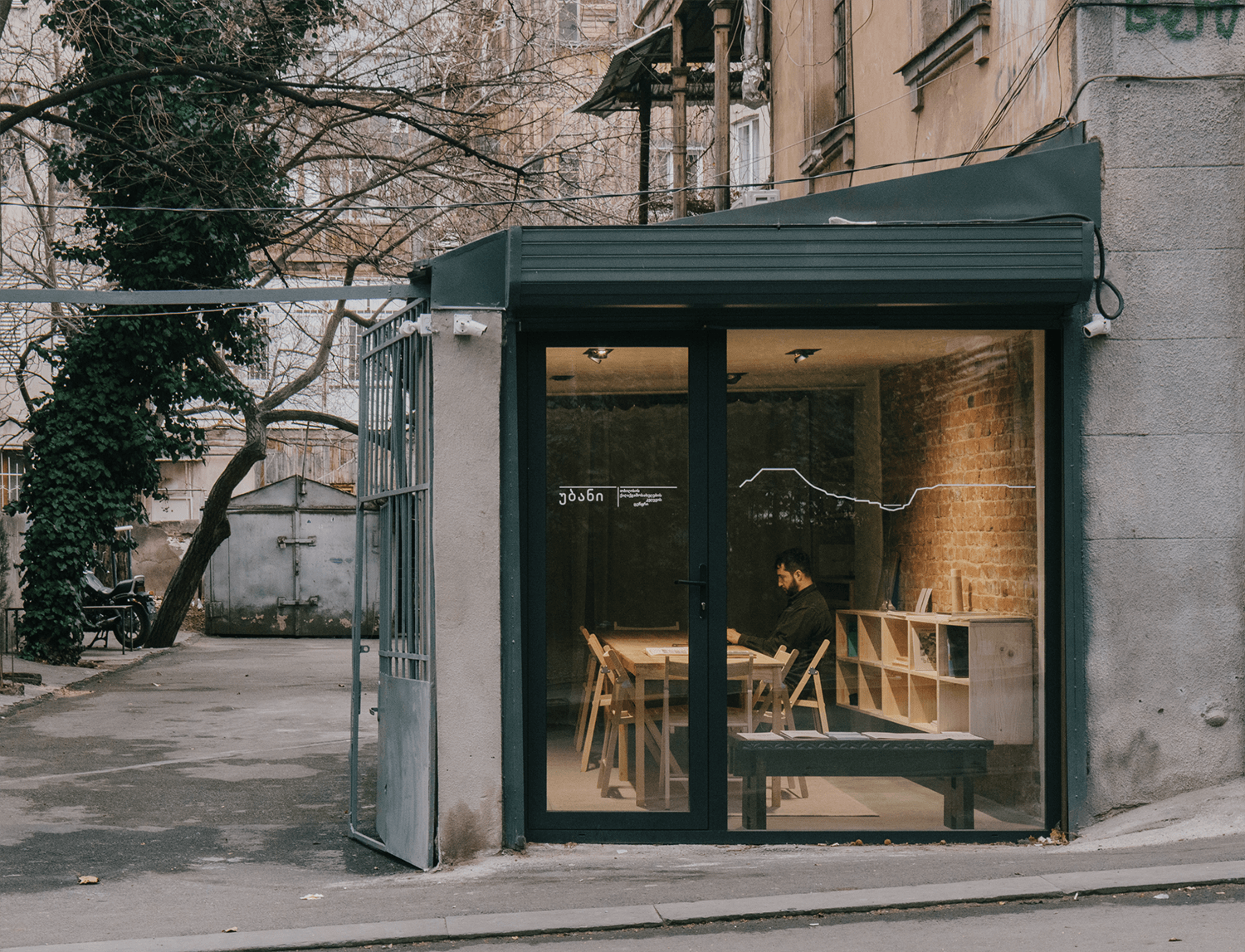
The Ubani Tbilisi Cityscape Research Center is an independent institution focused on exploring the urban landscape of Tbilisi. Through a variety of activities such as publishing books, running interdisciplinary workshops, hosting lectures, discussions, and exhibitions, Ubani seeks to engage a diverse audience including architecture students, professionals, historians, artists, and city officials. One of the center’s key projects involves creating detailed digital maps and 3D models of Tbilisi buildings, offering valuable insights into the city’s architectural fabric and urban form.
Loos by CSTM Fonts is in charge of typography in Ubani’s identity and on its website.
Loos is a closed-aperture sans serif that grew out of a cover lettering for Adolf Loos’ book titled ‘Why A Man Should Be Well-dressed: Appearances Can Be Revealing’. Loos comes in an impressive amount of styles, from Compressed to Extended and from Thin to Black. It has simple yet distinctive structures and a slight stroke contrast. The typeface supports Latin and Cyrillic as well the Georgian script.